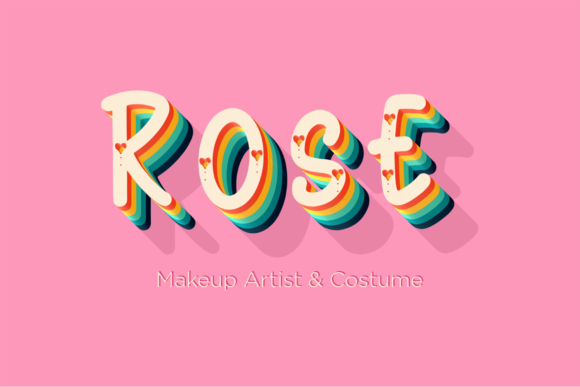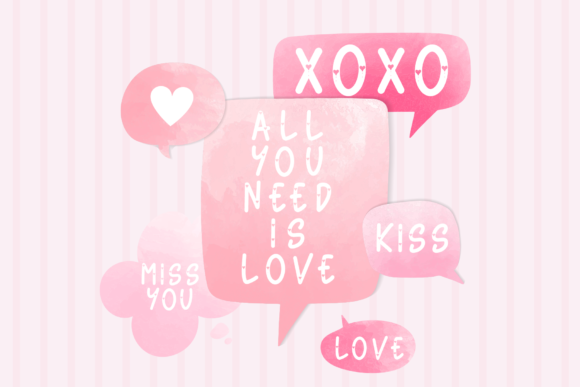
Holy Love Font
db-ku.com - Script & Handwritten -- Holy Love is a sweet and joyful handwritten font. Warm and romantic, this font will turn each of your project ideas into real works of art. Have fun with this beautiful font and explore its endless variations.